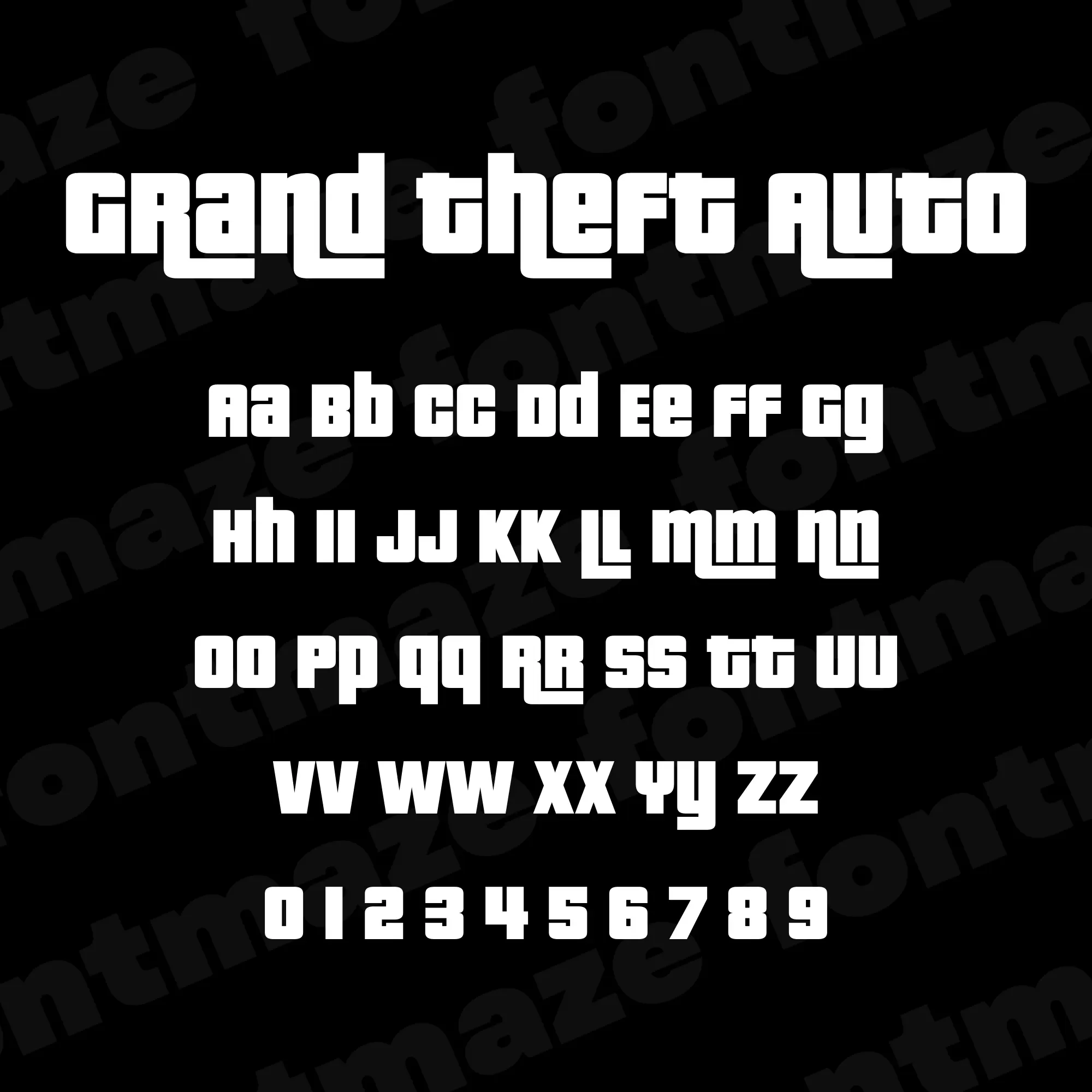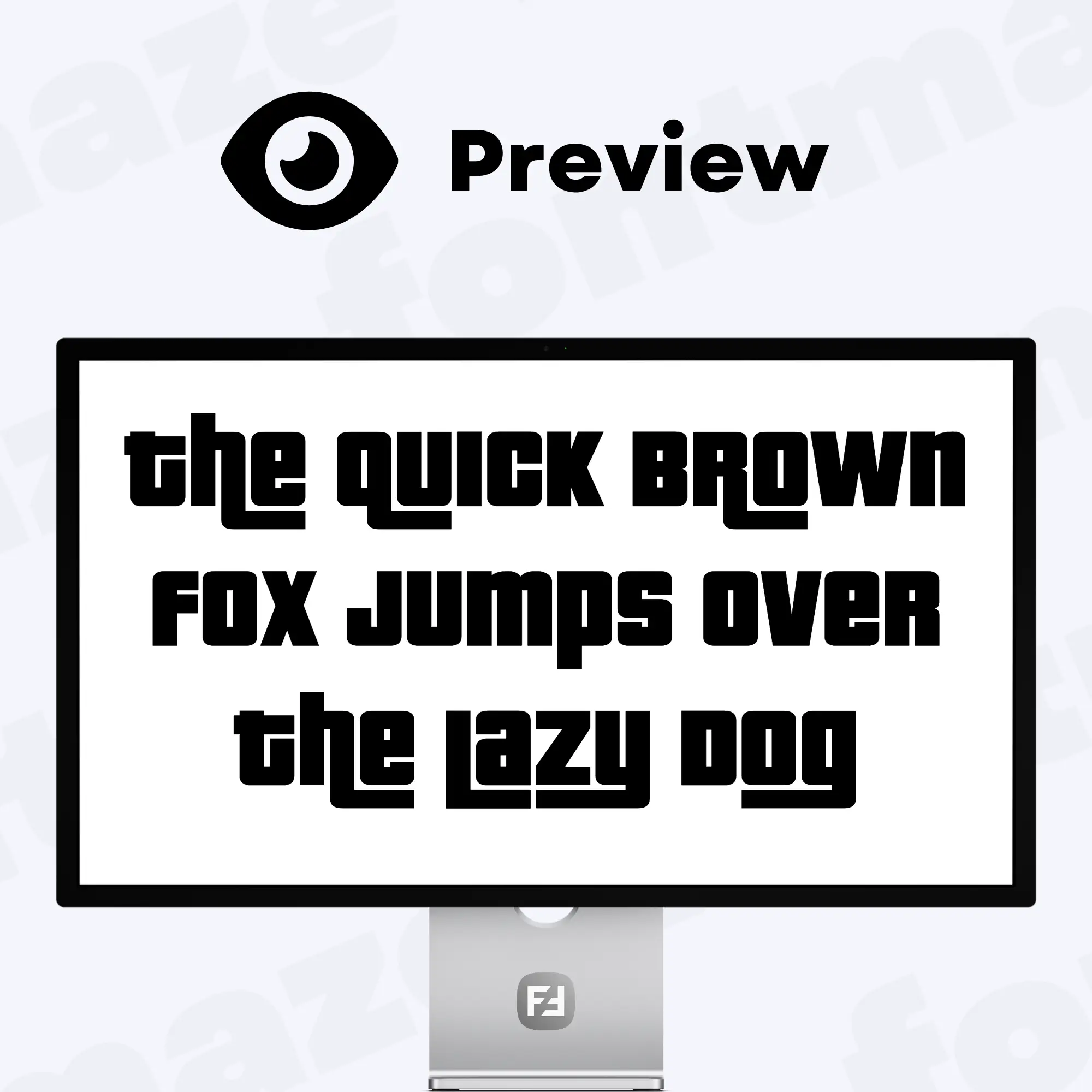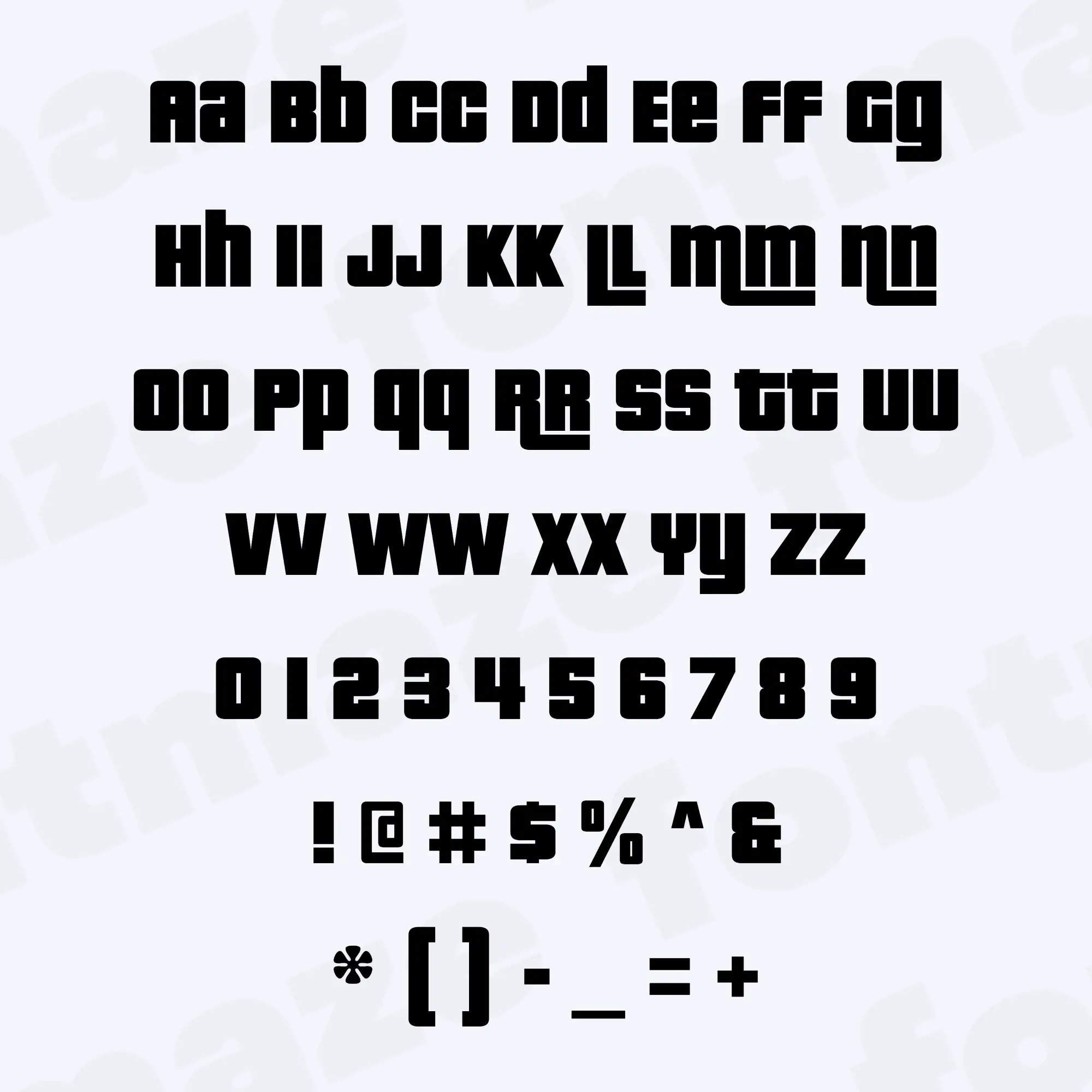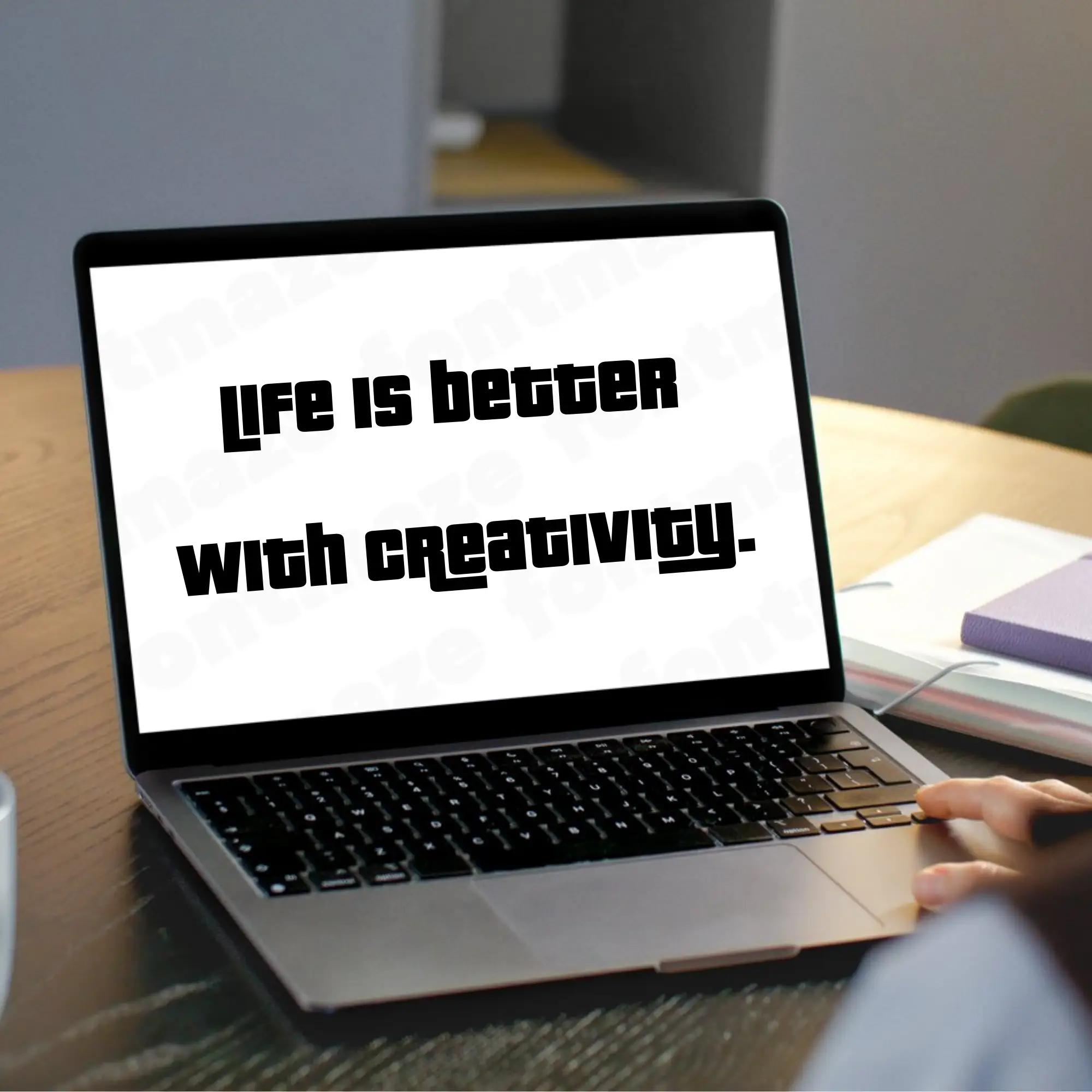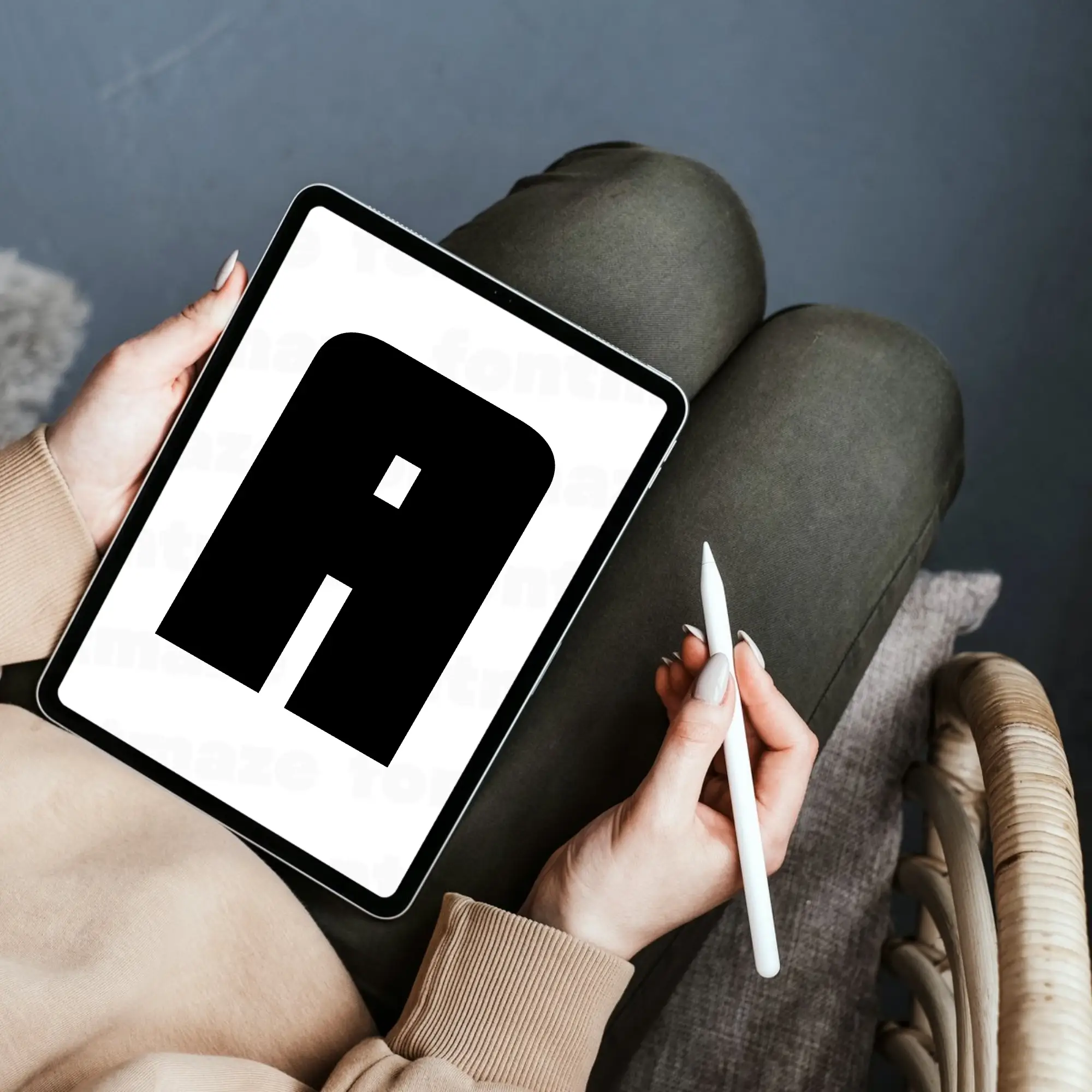
Our Grand Theft Auto Font, a display letters style typography
Make your next project stand out with our Grand Theft Auto font – a flexible and stylish typeface made for creators.
Handcrafted in our studio with care and attention to detail, the Grand Theft Auto font brings a unique, personal touch to your designs.
Use the Grand Theft Auto font for social media graphics, printable crafts, sublimation designs, stickers, logos, invitations, sports designs, party decorations, classroom projects, and digital downloads.